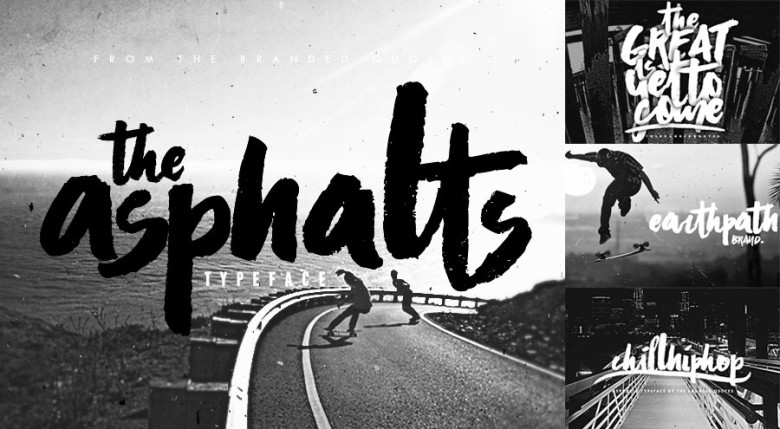
Asphalts Font
Asphalts Typeface is a mixture of rough and heavy brush strokes with a bit of easy-go-lucky script feel. Inspired by the steez of downhill passion that will uplift your brand name, logotype, identity, shirt design and presentations. Think of a word and type it using the Asphalts Brush, You will admire the uniqueness of this font!